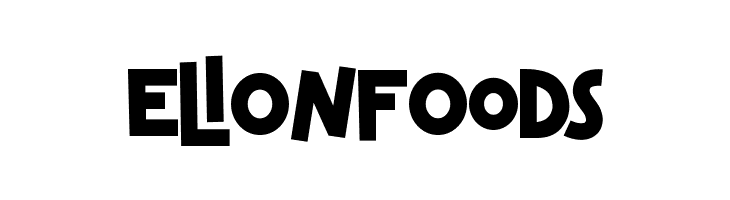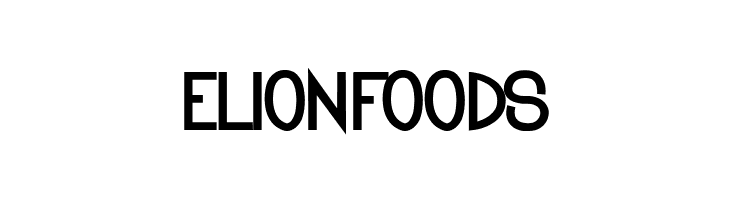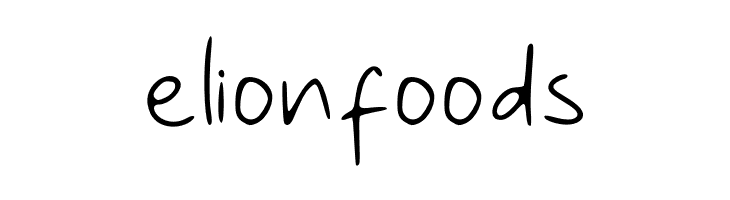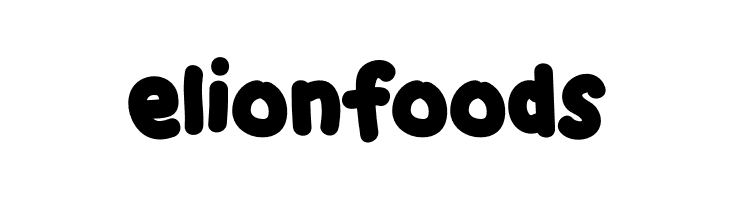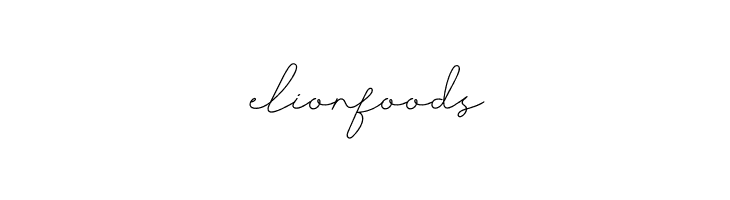
A playful, bold font with a hand-drawn, dynamic style.
A bold, geometric font with a modern and impactful design.
A distressed serif font with a vintage, textured appearance.
A playful set of hand-drawn decorative elements with a whimsical, brush-like texture.
A bold, brush-style cursive font with a lively and artistic flair.
A playful, handwritten font with a casual and friendly vibe.
A playful and casual handwritten font with irregular, dynamic strokes.
A playful, bold font with rounded, thick strokes and a whimsical style.
A graceful script font with flowing, interconnected characters and a calligraphic style.
A playful, handwritten font with a whimsical and dynamic style.